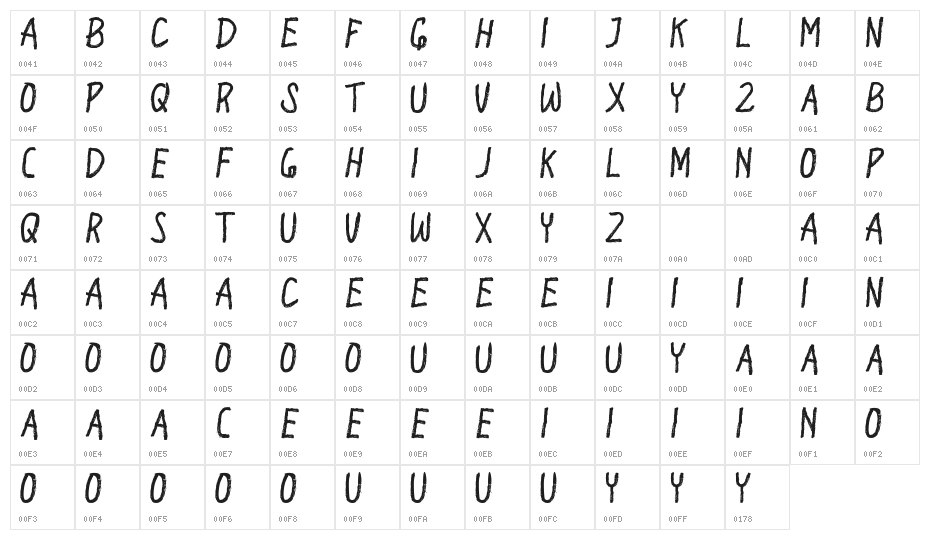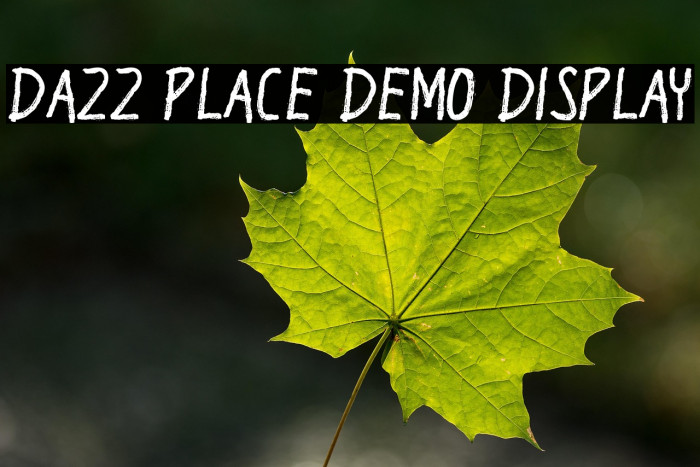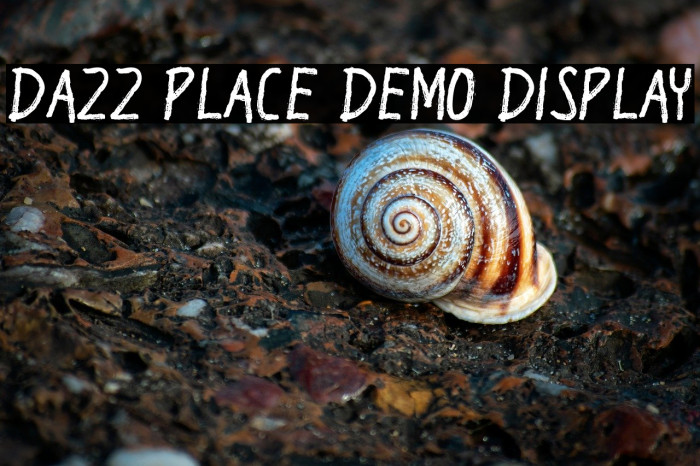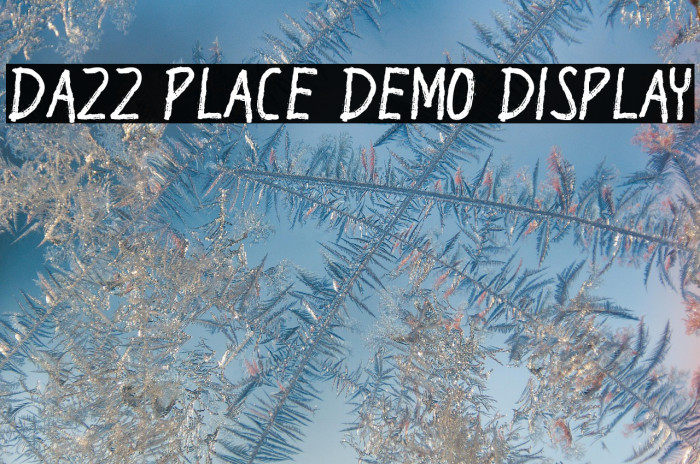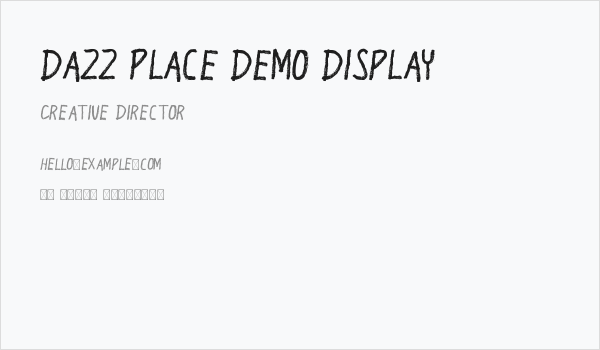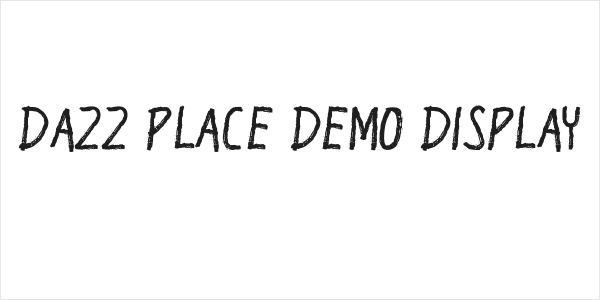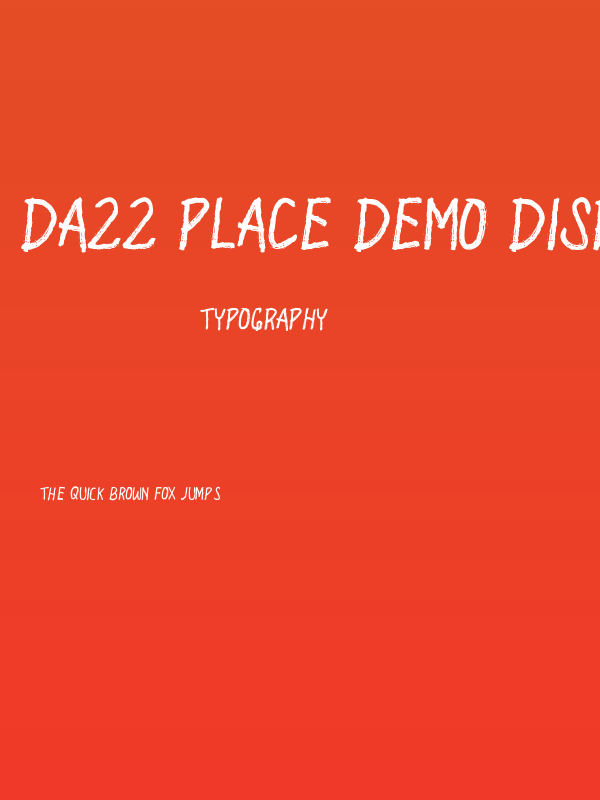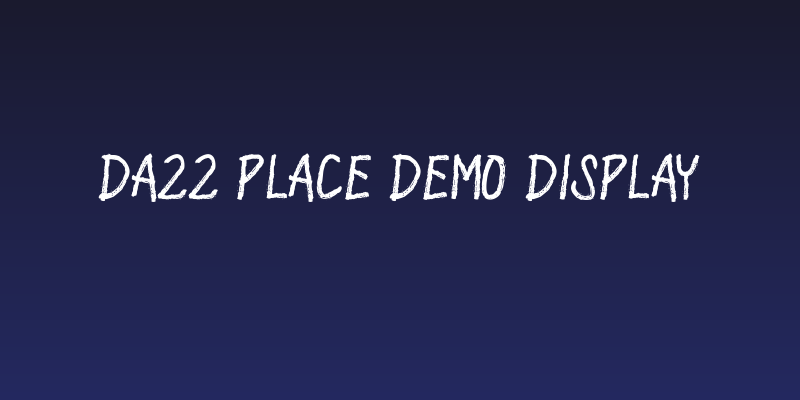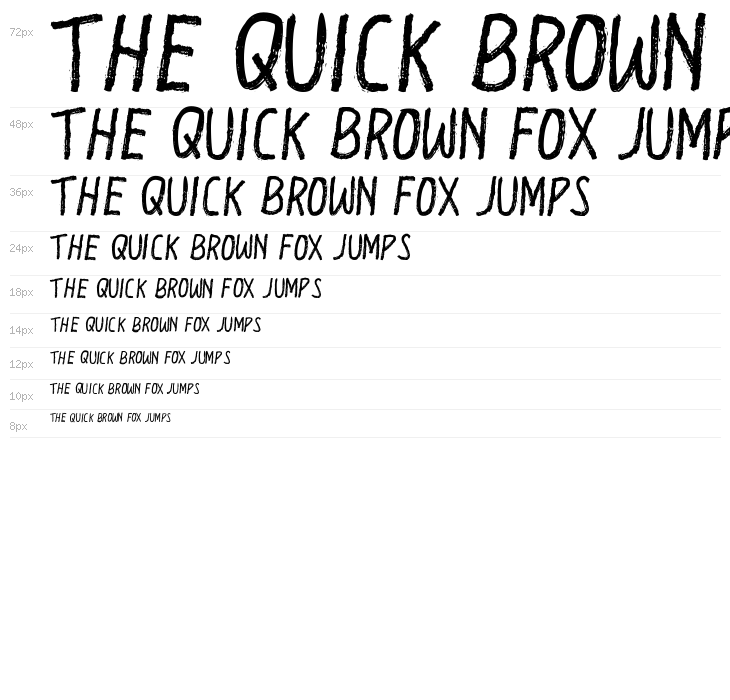
Dazz Place Demo Display Font
Dazz Place Demo Display Description
This font features a bold, hand-drawn style with a textured appearance, reminiscent of chalk or crayon. The uppercase letters are prominent and slightly irregular, giving a casual and artistic feel. The strokes are thick and uneven, adding to the handmade aesthetic. The characters are well-defined, with a playful and energetic vibe, making it suitable for creative and informal designs. The overall look is dynamic and expressive, perfect for projects that require a touch of personality and flair.
| Proposed Projects | Ideal for posters, greeting cards, children's books, and creative branding. |